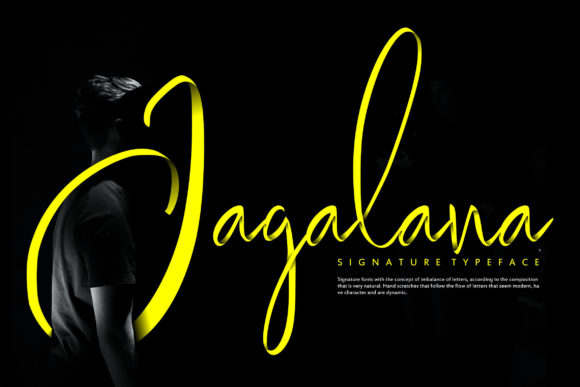
Welcome to the enchanting world of Jagalana, a script font that will captivate your heart and unleash your creativity. Inspired by the ancient art of calligraphy, Jagalana brings an air of timeless elegance to your designs.
Each letter flows seamlessly, like a gentle breeze carried on whispers of parchment. Its intricate flourishes and delicate curves evoke a sense of bygone eras, giving your projects a touch of nostalgia and sophistication.
Whether you're crafting invitations, branding your business, or simply adding a touch of flair to your personal projects, Jagalana is the perfect companion. Its versatile nature allows you to explore endless possibilities, from enchanting logos to breathtaking social media posts.
Indulge in the timeless beauty of Jagalana, and let your imagination soar to new heights. With every stroke of this exquisite font, you'll weave a tapestry of words that will leave an indelible mark on your audience.